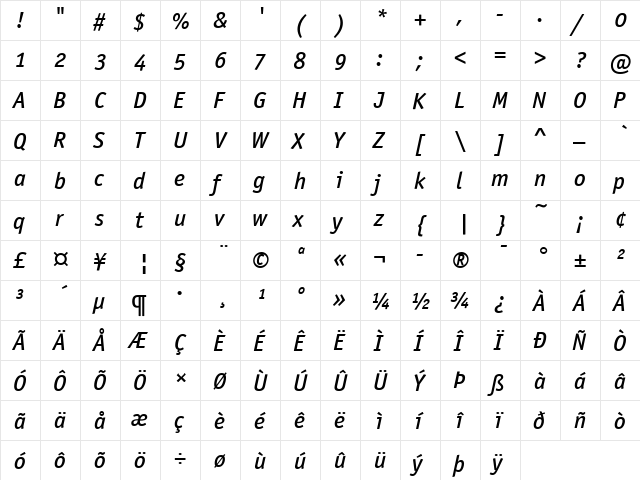
OfficinaSanITC Medium Italic Font Preview
OfficinaSanITC Medium Italic
OfficinaSanITC Medium Italic Font Details
| Style | Medium Italic |
| Foundry | \(c\) International Typeface Corporation and by Erik Spiekermann, Ole Schaefer |
Design Context for OfficinaSanITC Typeface
OfficinaSanITC takes a measured approach to typography — its balanced proportions and neutral character make it a reliable workhorse for both digital and print work. Its italic angle brings a sense of urgency and motion to the letterforms.
Pro Tip: Try OfficinaSanITC for annotation and caption copy alongside an upright companion — the contrast in angle creates a dynamic but ordered typographic system.